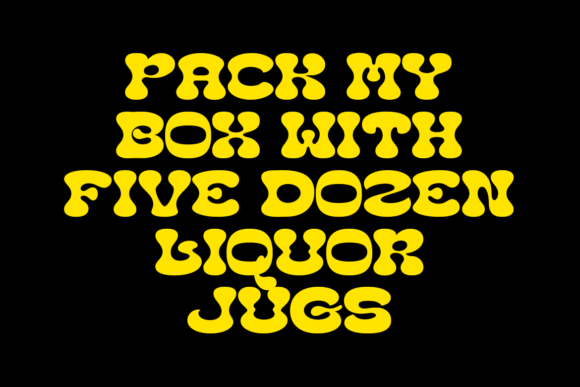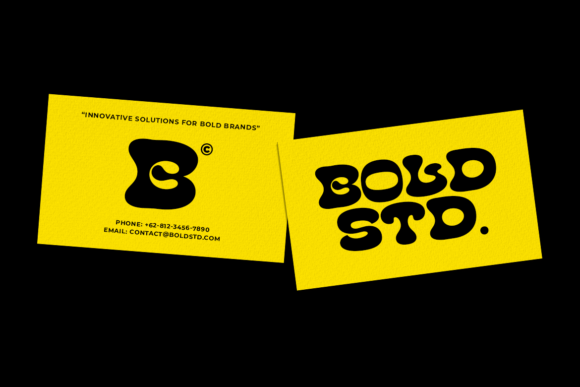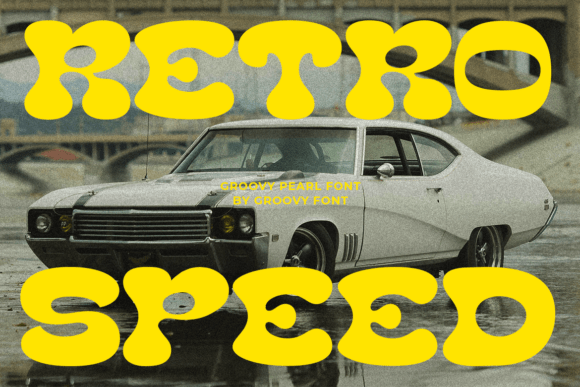
Groovy Pearl Font
About the Groovy Pearl Font
The wait is over! The incredible Groovy Pearl Font is now available for your design toolkit. Groovy Pearl is a Fancy Display Font that exudes retro charm with a bold and playful design. With its unique style, this font is perfect for adding a touch of flair to your projects, bringing a sense of nostalgia and fun to your designs.
Groovy Pearl thrives in display applications such as headlines, posters, and short, impactful branding elements. Its bold forms and playful curves work exceptionally well for eye-catching logos or packaging for products targeting a younger, more vibrant audience. However, its decorative nature makes it unsuitable for body text or UI elements where legibility is paramount.
For optimal visual harmony, pair Groovy Pearl with clean sans-serif fonts like Open Sans or Lato for a balanced contrast. A geometric sans-serif like Futura would also complement its retro charm. For a more luxurious feel, consider pairing it with a classic serif font such as Garamond or a subtly elegant script font.
Groovy Pearl’s core personality is undeniably bold and playful, with a distinct retro energy. It’s ideal for projects that want to convey a sense of fun, nostalgia, and perhaps a touch of rebellion without being overly whimsical.
Groovy Pearl Font Usage Examples
Groovy Pearl Font Example